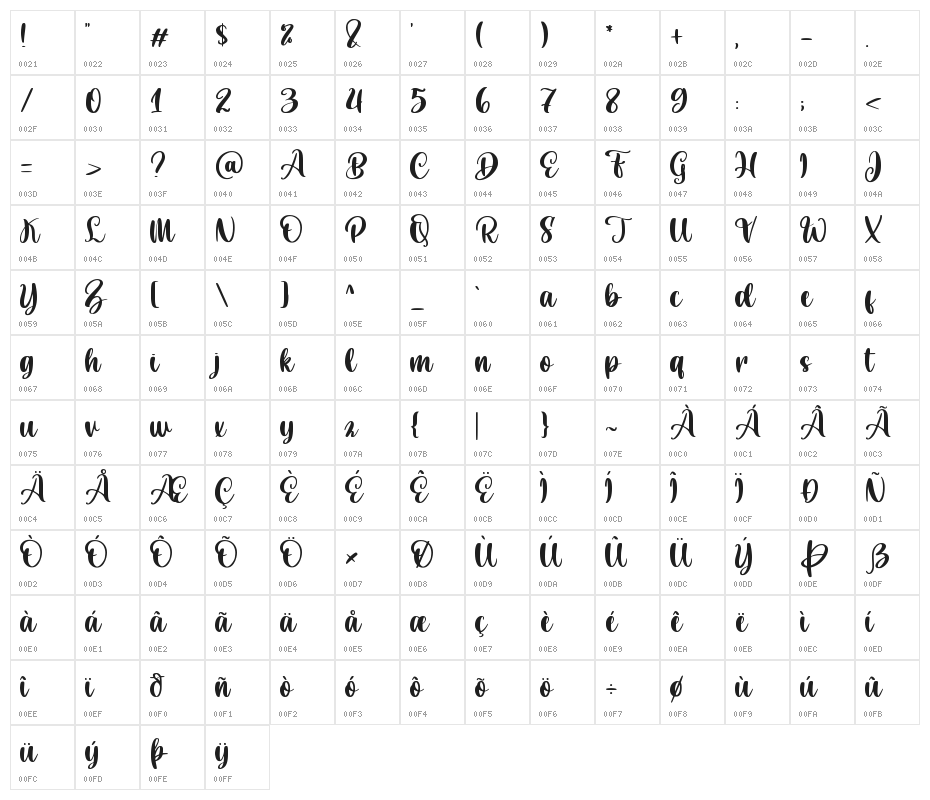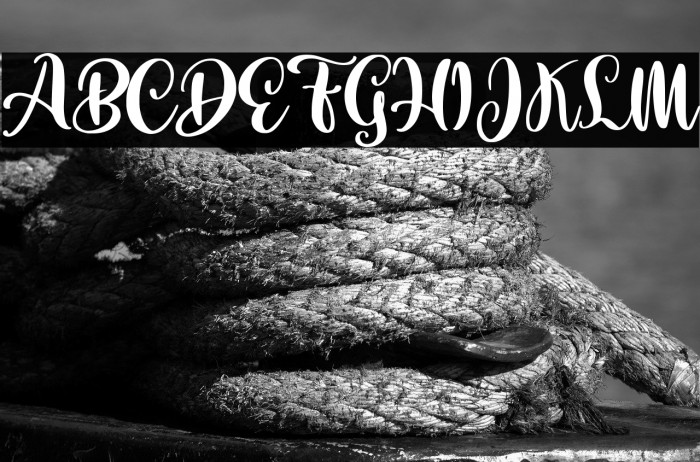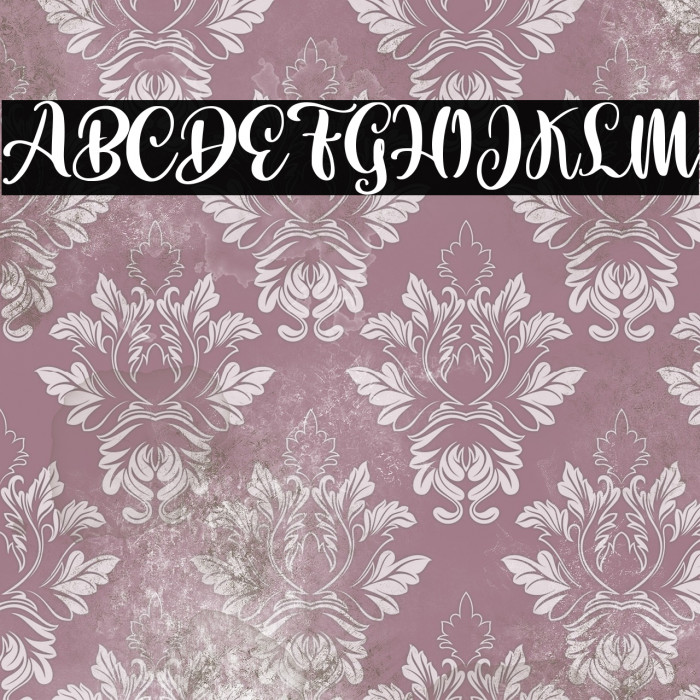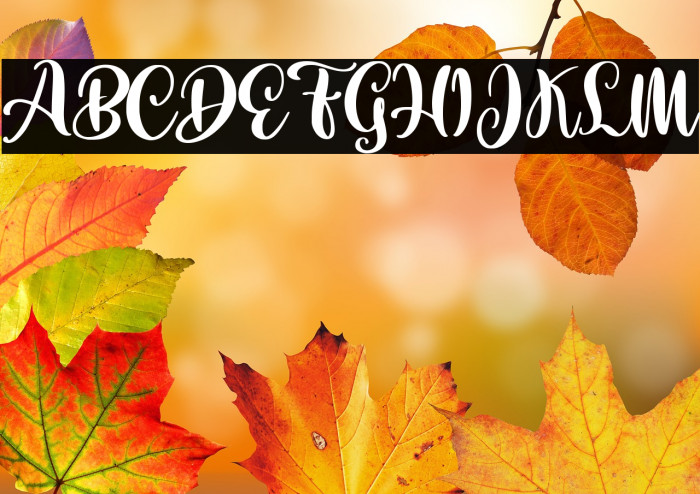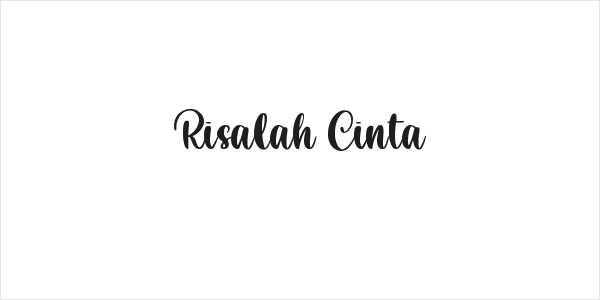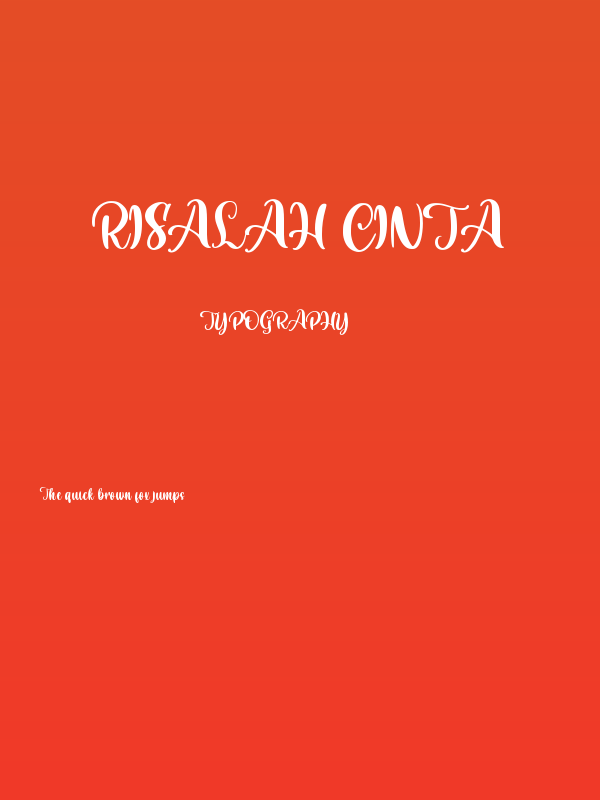
Risalah Cinta Font
Risalah Cinta Description
This font features a bold and flowing script style, characterized by its elegant and artistic curves. Each letter is crafted with a sense of movement, giving it a dynamic and lively appearance. The uppercase letters are particularly ornate, with sweeping lines and flourishes that add a touch of sophistication. The lowercase letters maintain a consistent style, with smooth connections between characters, enhancing the font's readability despite its decorative nature. The numerals and special characters are designed to match the overall aesthetic, ensuring a cohesive look across all text. This font is ideal for projects that require a personal and creative touch, such as invitations, greeting cards, and branding materials.
| Proposed Projects | Ideal for invitations, greeting cards, branding, and creative projects. |